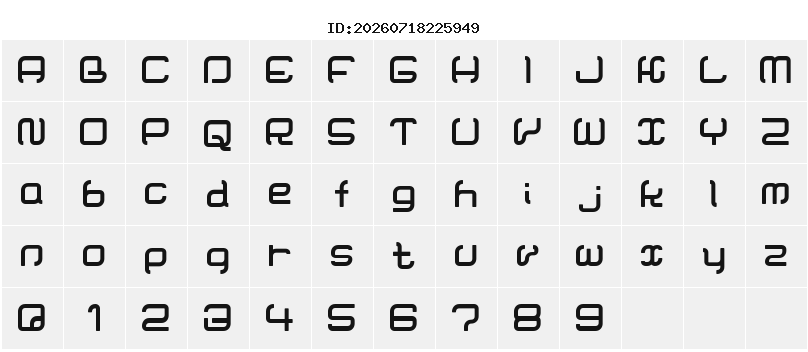
Cornering Preview
• Font Name: Cornering
• Full Font Name: Cornering
About Cornering.ttf
Cornering.ttf is a modern, elegant sans-serif font designed for ultimate readability and visual harmony. Perfect for branding, headlines, web design, and print materials.